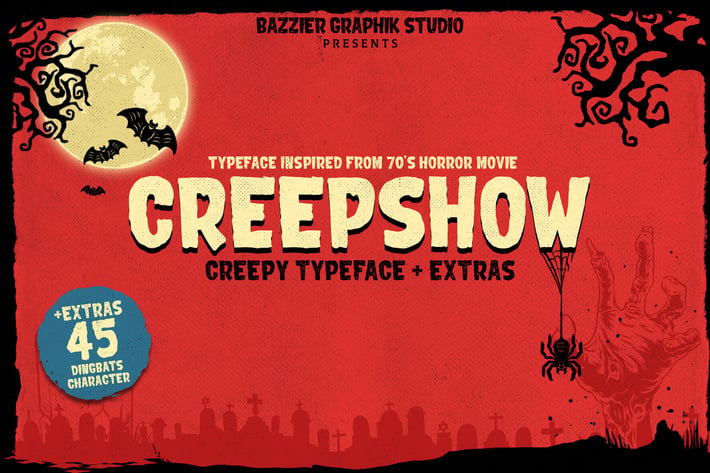
Creepshow- Horror font
Creepshow - Horror font
Suitable for your horror, halloween and creepy project. This font available in clean and rough version + the dingbats version bonus.